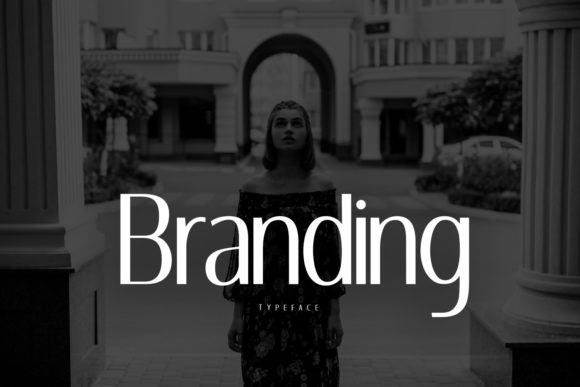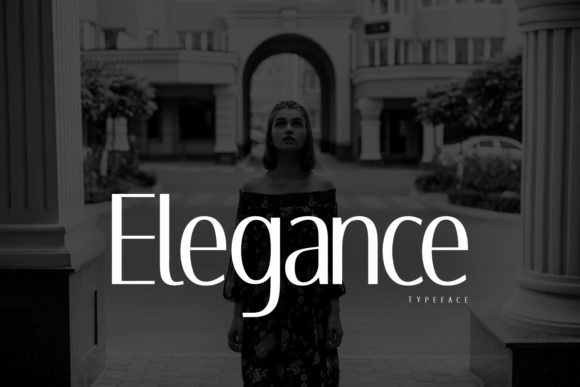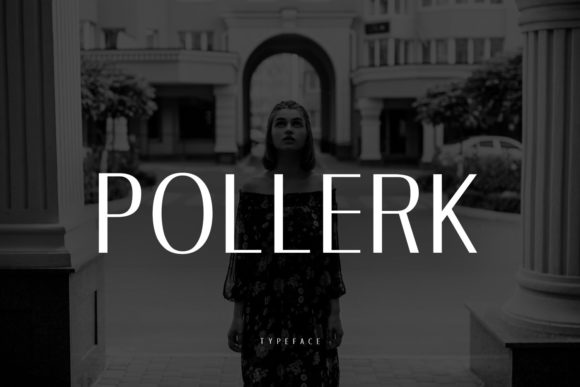
Pollerk Font – Free Download
Introduction to Pollerk Font
Pollerk is a modern sans serif font.
With proportional letters and a cozy, cheerful vibe, this font will take your creations to the next level while keeping everything classy and minimalistic .
Key Features of Pollerk Font